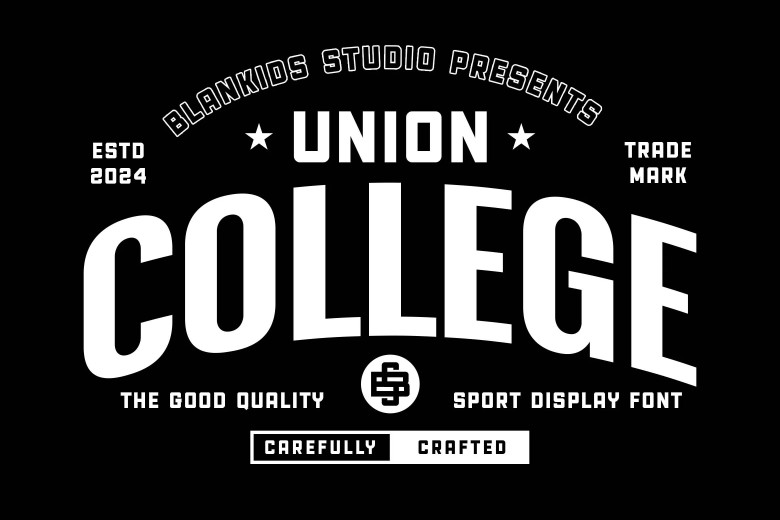
Union College Font
Union College is a modern font, perfect for any sports project or anyone who is doing professional branding work such as logo design, watermarks, posters, branding, promotions, product labels and more. Each of them represents a college and varsity. This font is available in two fonstal the High font Combination and the Low font combination. Union College font comes with a comfortable sentinel of sporty upper case and lower case letters, numbers and period. This font is rather sporty. You can in the previews above get some ideas on how you can use them.
Union College Display Font